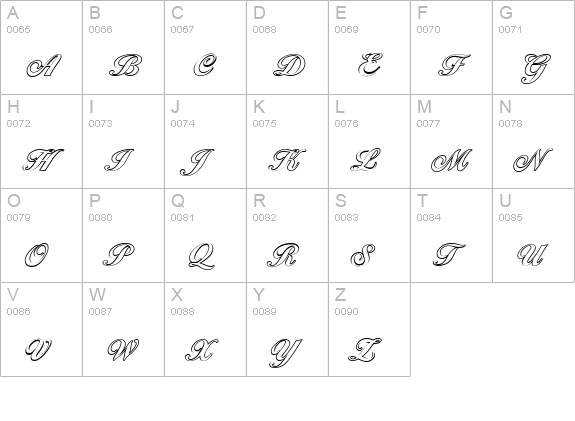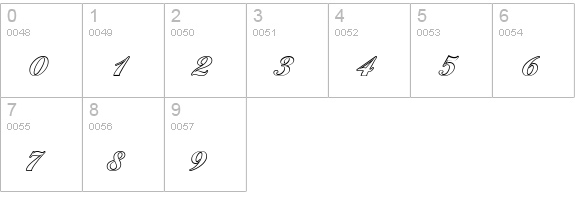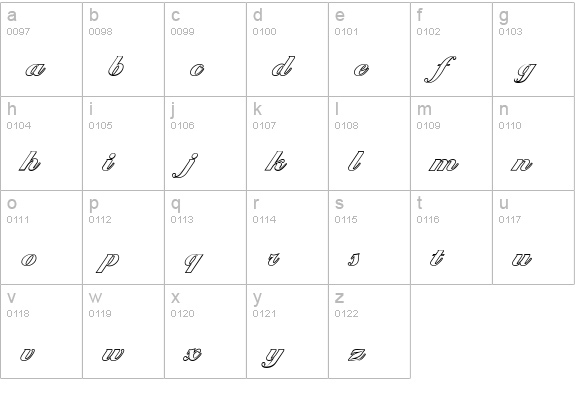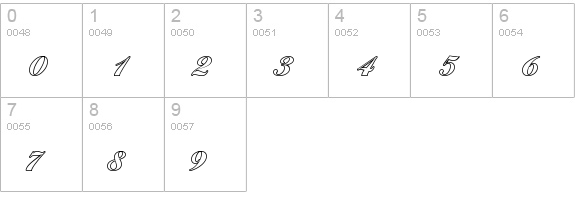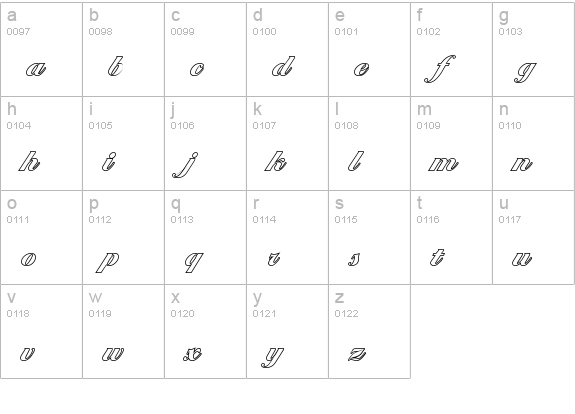
BallantinesOutline-Heavy-Regular is a heavy, high-impact variant in the BallantinesOutline typeface family \xE2\x80\x94 well suited to high-impact headlines, posters, and display advertising.
BallantinesOutline-Heavy-Regular is a bold and eye-catching font that is perfect for making a statement in your designs. With its strong outline and heavy weight, this font commands attention and adds a modern touch to any project. Whether you're creating posters, signage, or branding materials, BallantinesOutline-Heavy-Regular is sure to make a bold impression. The best part is that BallantinesOutline-Heavy-Regular is available for free download at FontsMarket.com. You can easily access this stylish font and incorporate it into your designs without any cost. Don't miss out on this opportunity to enhance your projects with the striking appeal of BallantinesOutline-Heavy-Regular. Download it now and let your creativity shine!